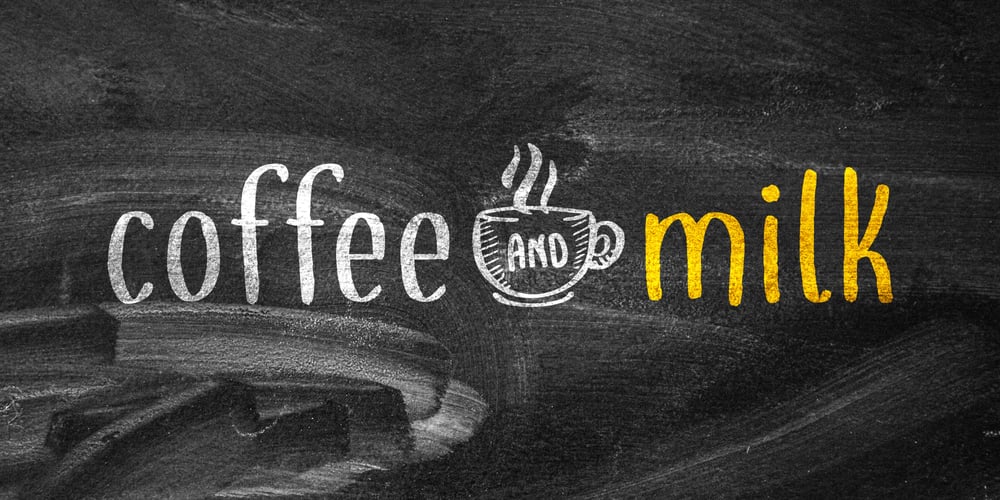
Coffee and Milk
Coffee and Milk font
Coffee and Milk Font Family was designed by Philip Trautmann and published by Shaped Fonts. Coffee and Milk contains 1 styles and family package options. “coffee and milk,” is a handwritten-style typeface that charmingly captures the casual essence of a café chalkboard. The font showcases versatility, making it suitable for diverse design aesthetics. The varying styles between uppercase and lowercase characters add a dynamic and playful flair to designs.You can use the font for book cover titles, menu cards for your café and anything where an authentic handwritten styled font comes in handy. Its very eligible characters makes it also easy to use the font for longer paragraphs of text.